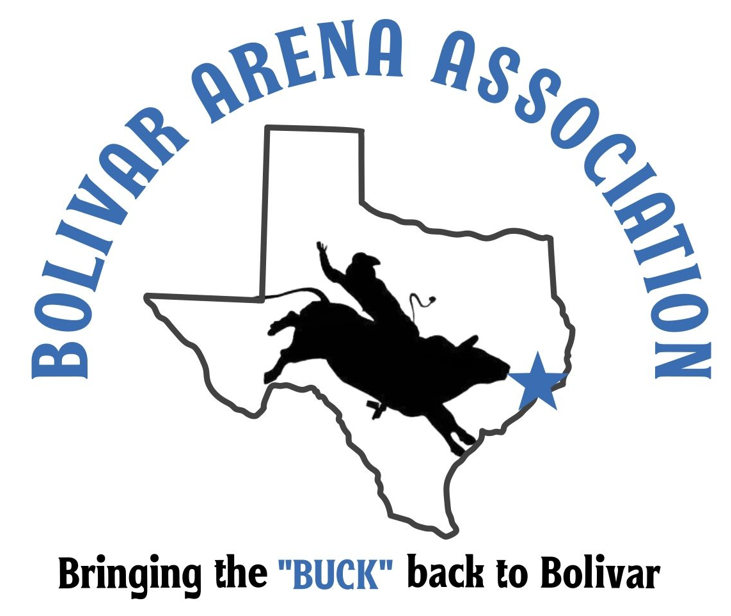
Please Help Identify Font in Bolivar Arena Association logo
I was sent this in a logo from Bolivar Arena Association to print on some t-shirts. They want some text added to the back to be in the same font as the logo.
Can someone please identify the font used - I believe the font is the same in the UPPER CASE lettering at the top arch "BOLIVAR ARENA ASSOCIATION" as the tag line.
The lower case "t" has a very distinct shape that I know I have seen before, but just can't place it...